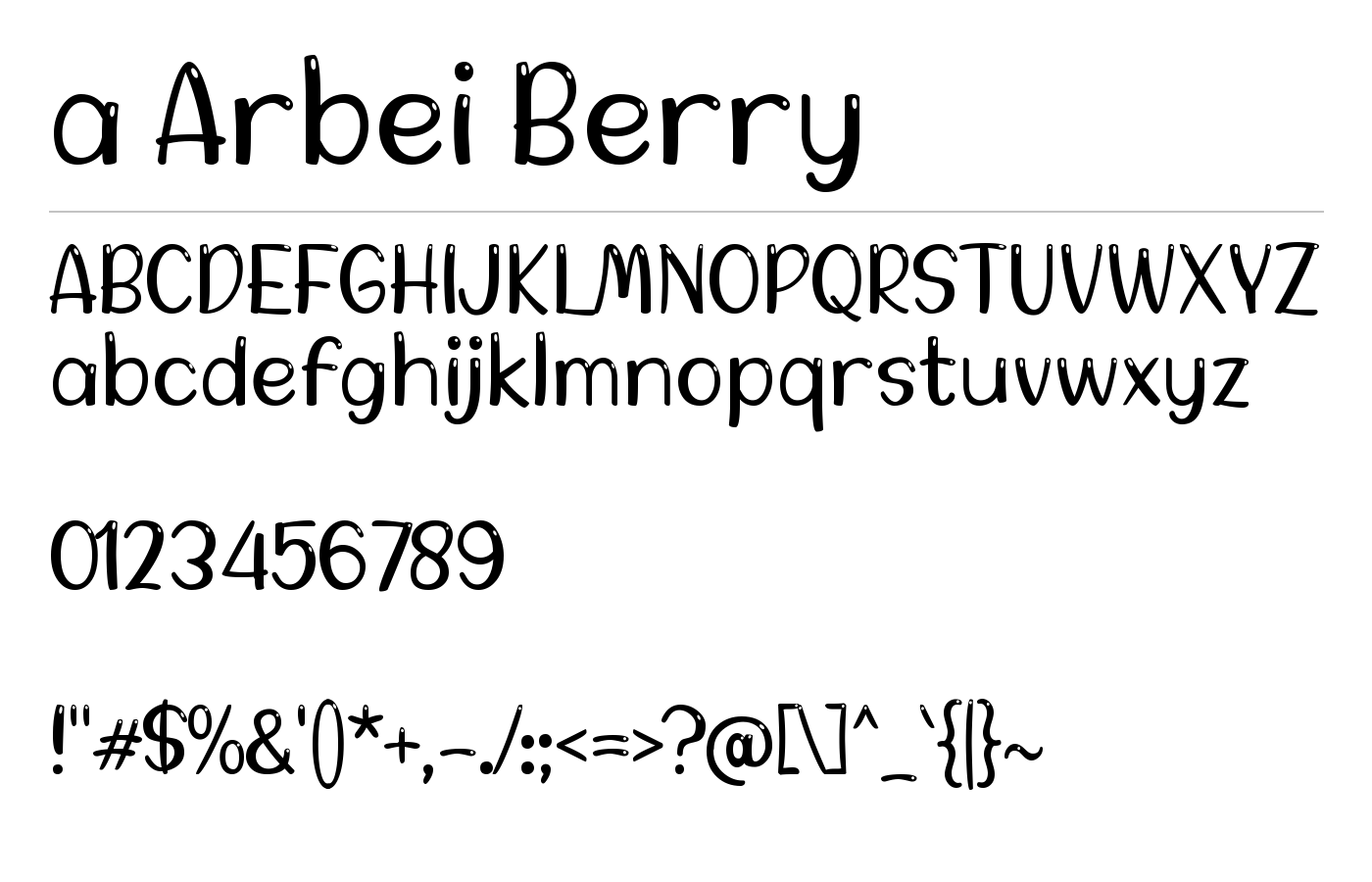
Arbei Berry is a playful and friendly sans-serif font featuring rounded, slightly irregular letterforms that evoke a hand-drawn, casual feel. Its light weight, moderate contrast, and whimsical details make it ideal for creative and informal design projects, including children's books, invitations, and fun branding. The font’s approachable style works well in headlines and short texts where a touch of personality and warmth is desired.
a Arbei Berry Font
About a Arbei Berry Font